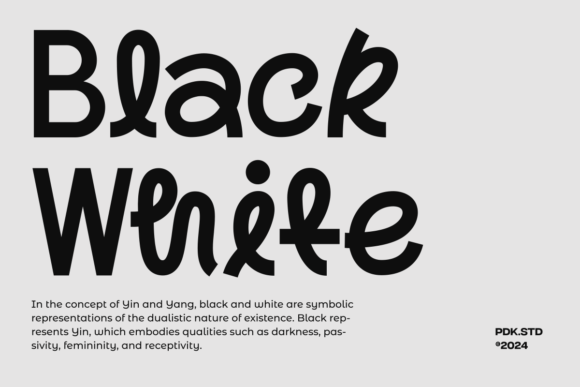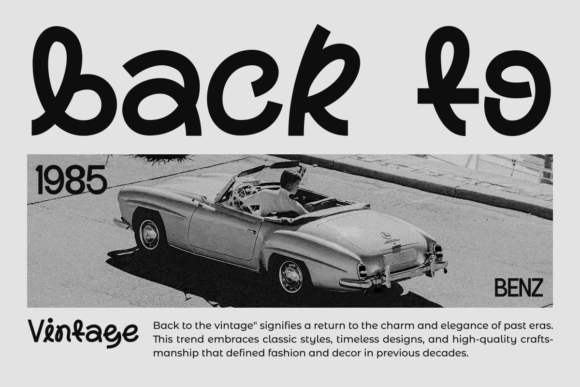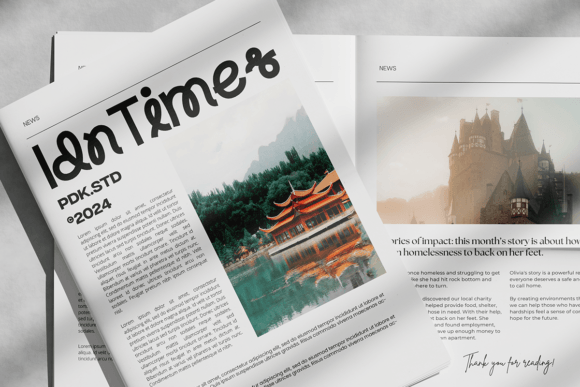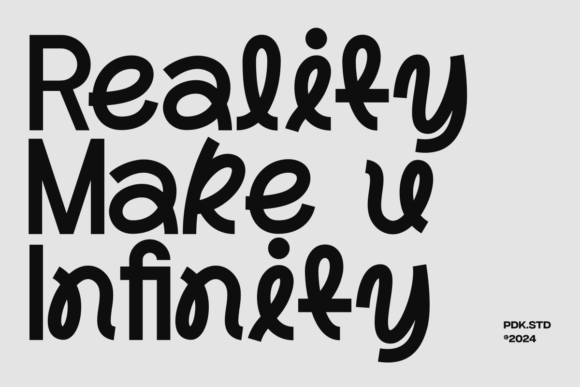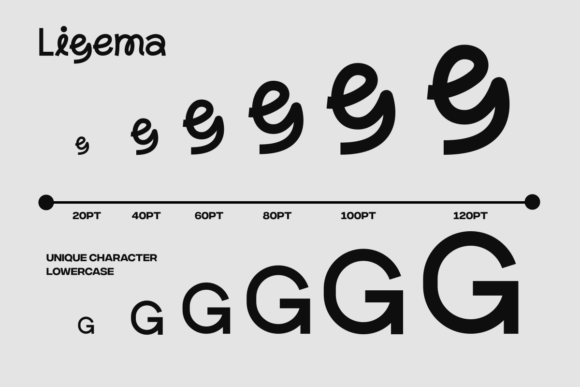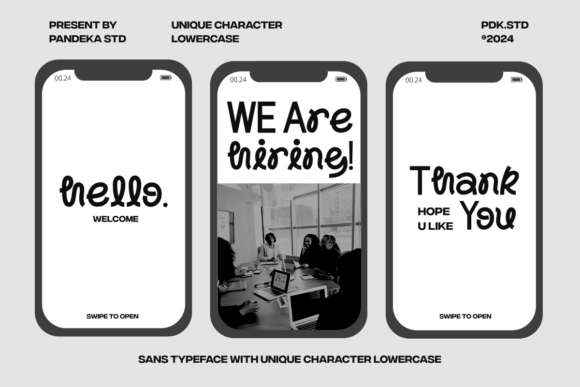
Introduction to Ligema Font
Introducing Ligema.
– Casual sans that is the perfect combination of strength & play Ligema is an experimental and unique font with stylish curves and a modern visual design.
Key Features of Ligema Font